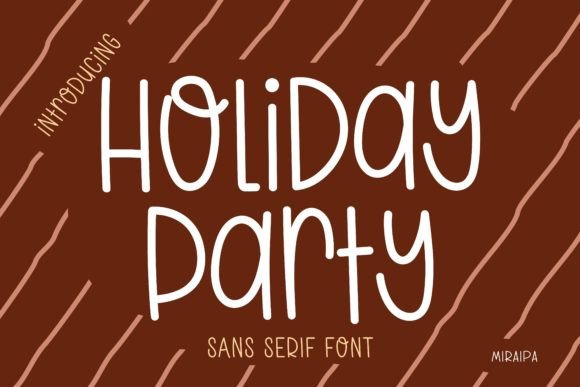
Welcome to the world of Holiday Party Font, a charming and friendly handwritten script font that will infuse your creative projects with warmth and personality. Step into a realm of elegance and charm with this font, meticulously crafted to capture the essence of festive cheer and heartfelt sentiments.
Unleash your creativity with Holiday Party Font and see your words dance across the page like delicate snowflakes falling on a crisp winter morning. Its graceful curves and whimsical style will add a touch of magic to your designs, whether you're creating heartfelt greeting cards, enchanting invitations, or cheerful posters.
Immerse yourself in the versatility of Holiday Party Font, perfectly suited for a myriad of projects. It effortlessly complements diaries and planners, bringing a personal touch to your daily musings and appointments. It shines in back-to-school projects, adding a dash of fun and inspiration to learning materials.
With Holiday Party Font, transform your wedding invitations into exquisite works of art, capturing the essence of love and joy. Create party decorations that exude festivity and merriment, setting the stage for unforgettable celebrations. Embrace the Fall season with enchanting designs that reflect the beauty of changing leaves and crisp autumn air.
Halloween takes on a new charm with Holiday Party Font, as you craft invitations and decorations that ooze spooktacular delight. Christmas comes alive with this font, as you design festive cards, tags, and ornaments that radiate holiday cheer. Unleash your imagination and create designs that capture the magic of the season.
Whether you're designing posters that demand attention or blogging with a touch of flair, Holiday Party Font will elevate your visual appeal. Its playful nature lends itself beautifully to child-related designs, adding a touch of whimsy and innocence. Create greeting cards that express heartfelt sentiments, or use it in your social media posts to make your words truly shine.
With Holiday Party Font, the possibilities are endless! Its versatility extends to clothing designs, bringing a unique touch to T-shirts, hoodies, and accessories. Let your creativity soar as you design child-related projects that spark imagination and bring joy to little ones.